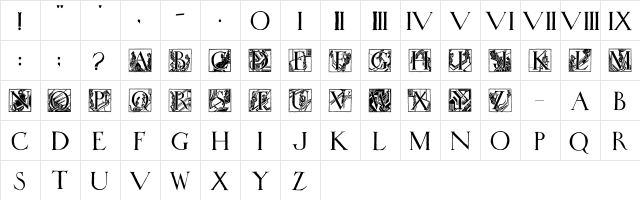
Wadsworth's_Industria Normal
Design Context for Wadsworth's_Industria Typeface
Wadsworth's_Industria takes a measured approach to typography — its balanced proportions and neutral character make it a reliable workhorse for both digital and print work.